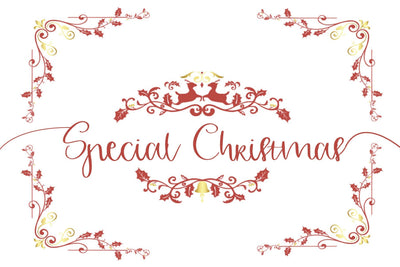
Special Christmas
perfect for branding, logo, invitation, stationery, social media post, product packaging, merchandise, christmas font, blog design, game titles, cute style design, Book/Cover Title and more.